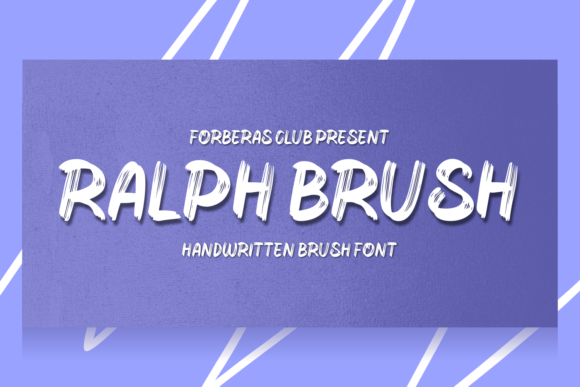
Introducing Ralph Brush Font, the ultimate display font that will ignite your creativity and elevate your designs to new heights. This handcrafted masterpiece, brought to you by the renowned Forberas Club, is a testament to the beauty of handwritten brush strokes, effortlessly capturing the essence of authenticity and artistry.
Step into a world where individuality meets elegance, where every letter dances across the page with a touch of whimsy and charm. Ralph Brush Font is not just a collection of characters; it's an expression of your unique style, an extension of your creative vision. Whether you're a seasoned designer or just starting, this font will unlock a new realm of possibilities, transforming your ordinary words into captivating works of art.
Indulge in the versatility of Ralph Brush Font, a font meticulously crafted to adapt seamlessly to various design projects. Its bold, expressive strokes lend themselves perfectly to logos, branding, posters, and social media graphics, demanding attention and leaving a lasting impression. Unleash your inner artist and explore the endless creative possibilities, knowing that Ralph Brush Font will rise to every challenge, exceeding your expectations time and again.
Experience the allure of a script font that dances across the page with grace and fluidity. Ralph Brush Font captures the essence of handwritten notes, adding a touch of warmth and intimacy to your designs. It's like having your own personal calligrapher, effortlessly transforming your words into works of art.
Don't settle for ordinary fonts; embrace the extraordinary with Ralph Brush Font. Its captivating charm will add a touch of magic to your designs, leaving your audience spellbound. Imagine the impact of your marketing materials, social media posts, and creative projects when they're adorned with the elegance of Ralph Brush Font.